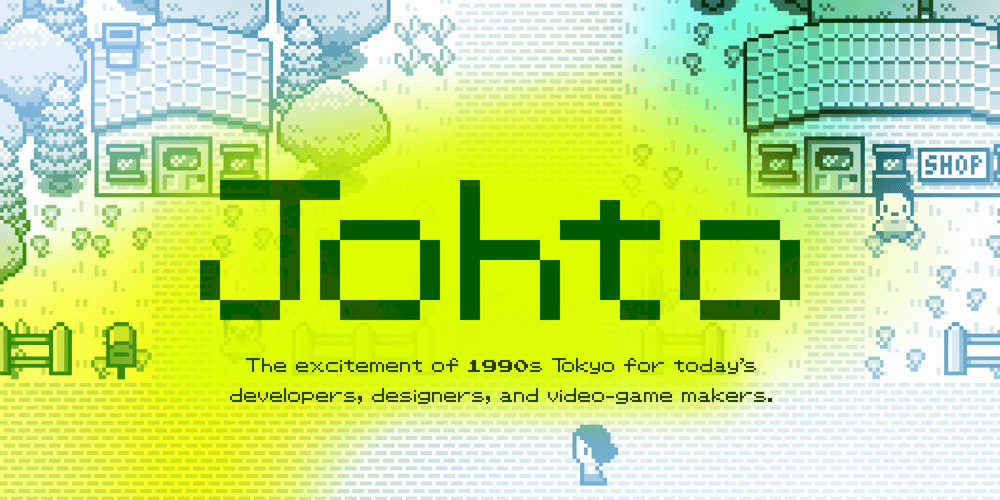
Johto Font Family was designed by Pascal Pixel and published by Superpencil. Johto contains 2 styles and family package options. Finally, a font that’s ready for your pixel adventures.Johto is a hand-crafted, pixelated font that captures the excitement of 1990s Tokyo for today’s developers, designers, and video-game makers.We all love the pixelated games we played as kids. Now, as programmers, video makers, and creators of side projects that make our hearts pound with passion, there is nothing more satisfying than imagining ourselves in the shoes of the people that inspired us. We want to feel like we’re right back there in the excitement of 1990s Tokyo, as an artist or engineer.Johto was created because of our disappointment with the pixel fonts we found online. And for people like us, who care deeply about the quality of our work – especially the work we do for ourselves – we realized we needed a high-quality pixel font to give our work the look it deserves.With over six hundred characters plus support for dozens of languages, including Japanese, tons of fun hand-crafted ligatures to get the look right, Johto is an authentic nostalgia trip. It has all those missing details you didn’t notice, but your brain did.